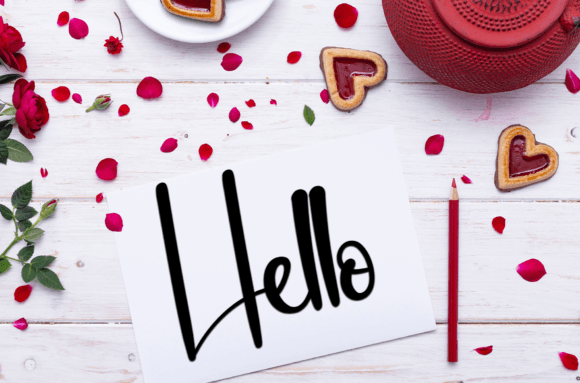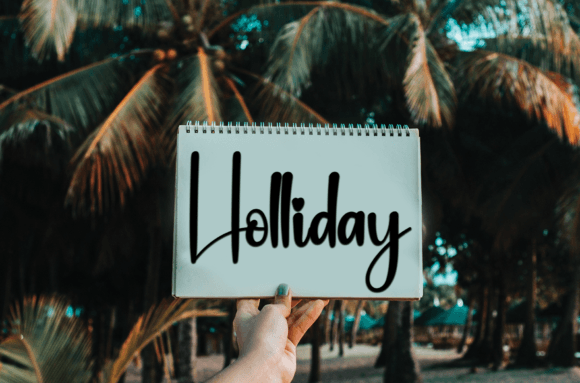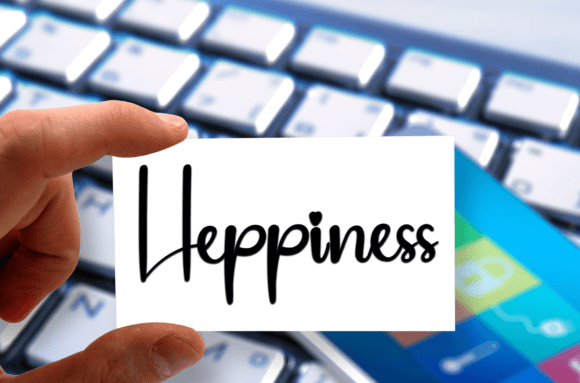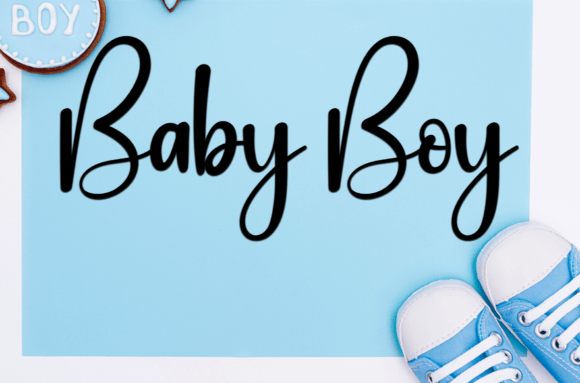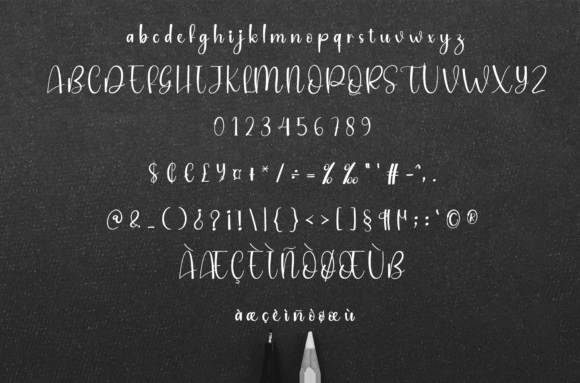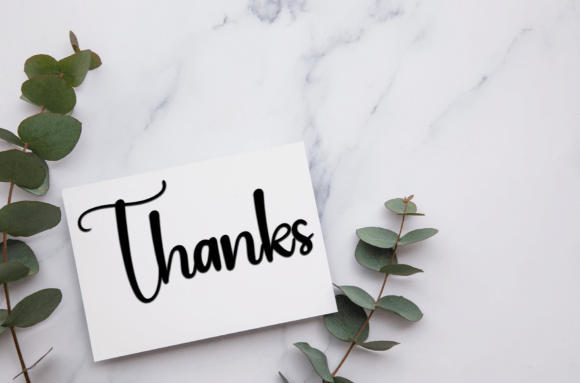
Introduction to Rain Rumble Font
Have you ever sat in front of your computer, staring at a blank page, trying to bring your creative project to life? The cursor blinks, and your mind goes blank. It’s a moment we’ve all been there, and it’s precisely when we need a little inspiration to get our creative juices flowing. That’s where the Rain Rumble Font comes in – a fun and friendly handwritten font that’s perfect for any occasion.
Whether you’re designing greeting cards, creating presentations, or working on a digital project, the Rain Rumble Font has the potential to become your go-to design resource. Its high-quality design makes it ideal for various applications, from crafts to professional designs. Plus, with its transparent background, you can easily place it over any image or background, giving you endless possibilities for creative expression.
Key Features of Rain Rumble Font
- High-quality design resource suitable for creative projects, offering a unique and dynamic aesthetic.
- Designed with a bold and modern style, making it perfect for use in logos, headings, and titles.
- Supports various languages, ensuring its versatility in global design projects.
Honest Review: Rain Rumble Font
I recently stumbled upon the Rain Rumble Font, and I must say it’s been a game-changer for my creative project. This high-quality font is a fantastic design resource that adds a unique touch to any text-based element.
- ✨ Highly customizable: The Rain Rumble Font comes in various styles and weights, making it easy to adapt to different design needs.
- ✨ High-resolution graphics: The font’s graphics are crisp and clear, perfect for use on various mediums, including digital displays and print materials.
- ⚠️ Limited transparency options: While the font itself is great, I found that working with transparent backgrounds can be a bit tricky.
- ⚠️ Not suitable for all designs: The Rain Rumble Font’s unique style might not be the best fit for every project, so it’s essential to use it judiciously.
Overall, I’m thoroughly impressed with the Rain Rumble Font. Its high-quality design, customization options, and free download make it an excellent addition to any designer’s toolkit. While it may have some limitations, I believe it’s a valuable resource for anyone working on a creative project.
How to Use Rain Rumble Font
The Rain Rumble Font is a versatile design resource that can be used in a variety of creative projects, including branding, packaging, and advertising. You can also use it to create custom graphics, invitations, and social media posts. The free download of the Rain Rumble Font makes it an ideal resource for designers of all levels.
Getting the Most Out of the Rain Rumble Font
To get the most out of the Rain Rumble Font, be sure to experiment with different font sizes, colors, and styles. You can also use the font in combination with other design elements, such as images and graphics, to create a unique and eye-catching design. The Rain Rumble Font is a high-quality design resource that’s sure to elevate your creative project to the next level.
Q: Is the Rain Rumble Font suitable for web design?
Yes, the Rain Rumble Font is designed to be highly legible and scalable, making it an excellent choice for web design projects. The font’s transparent background version is particularly useful for creating beautiful, layered designs. Simply use the font in conjunction with a suitable web font format, such as WOFF or EOT, to ensure optimal rendering across different browsers.